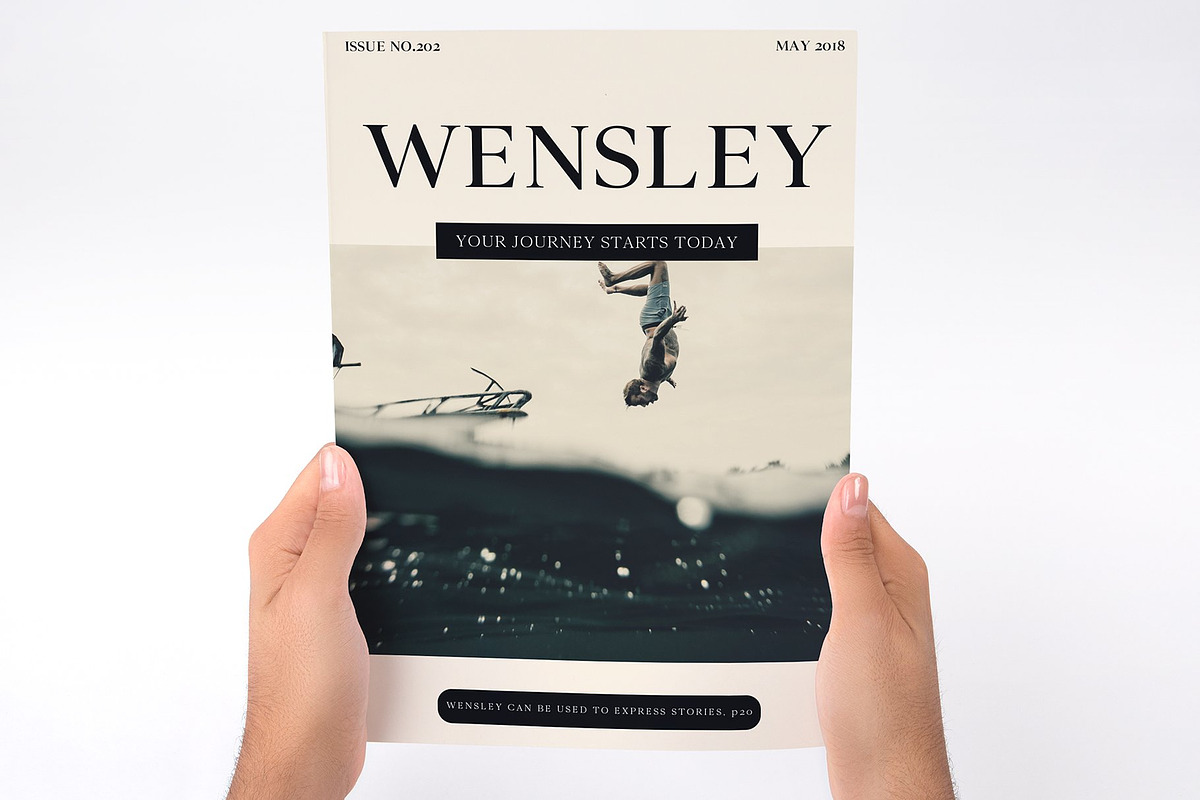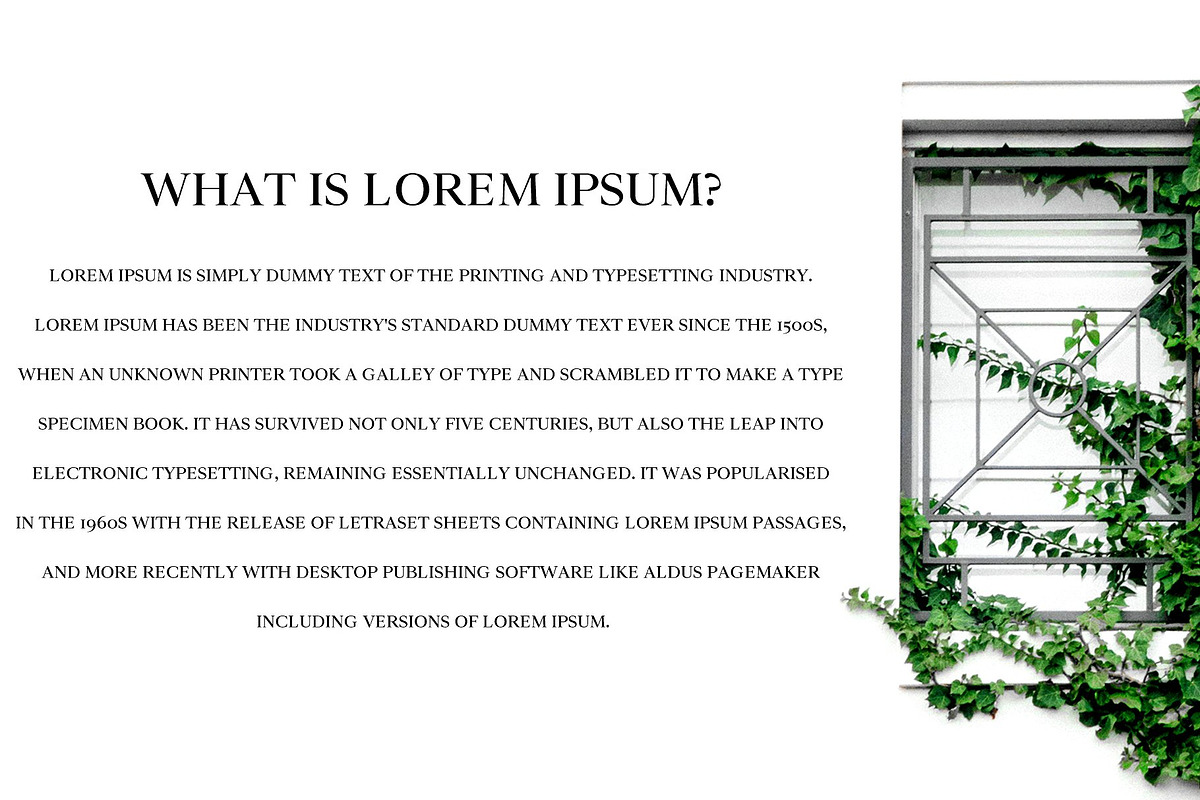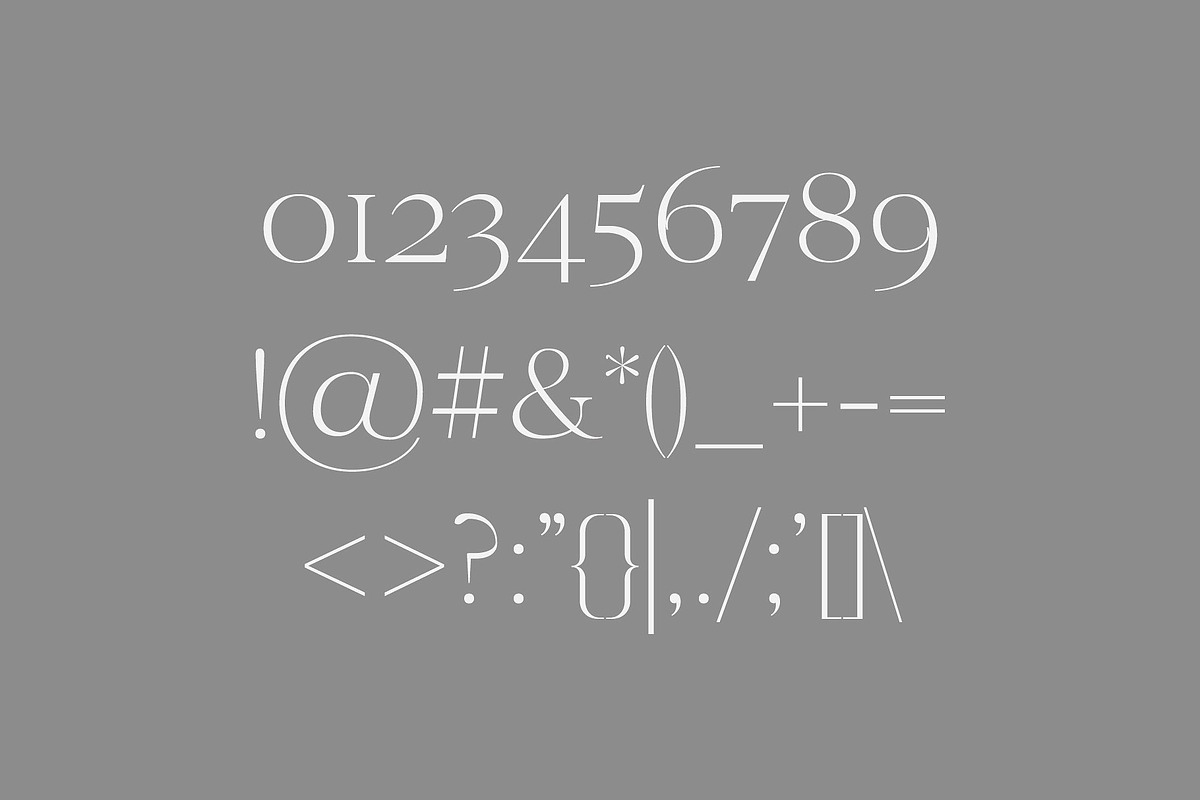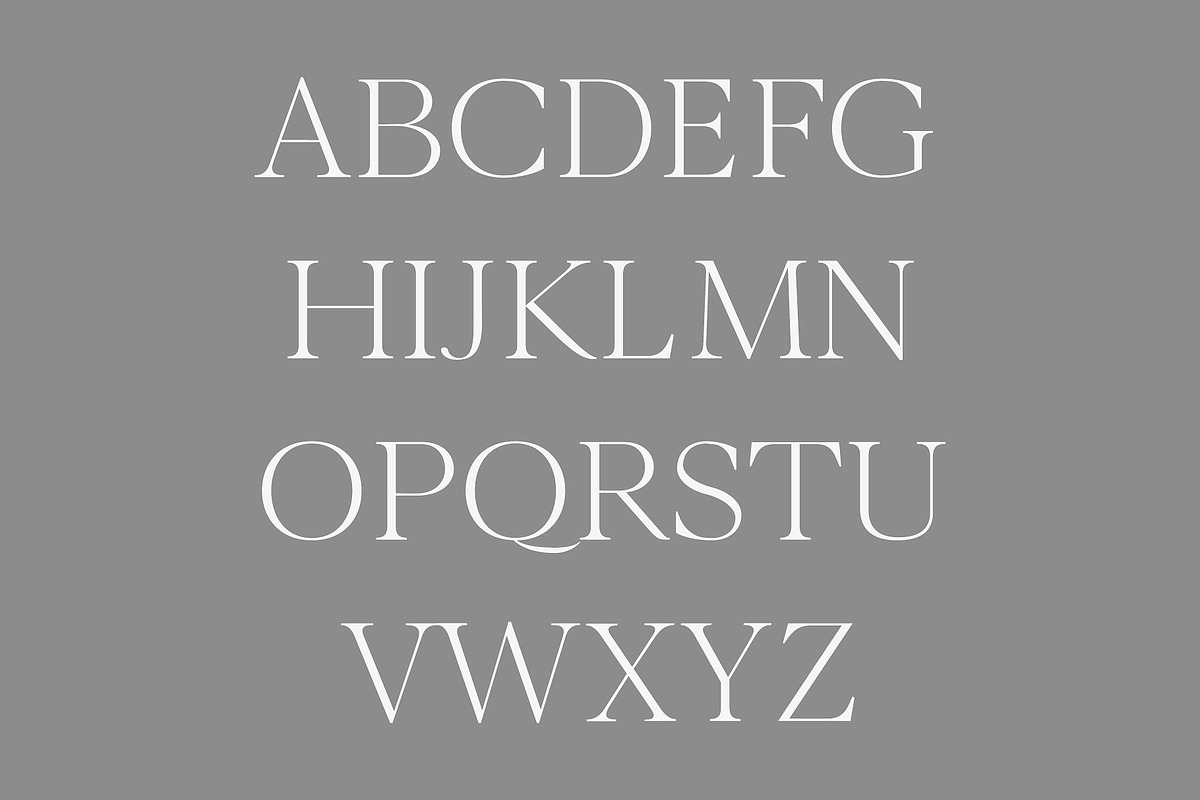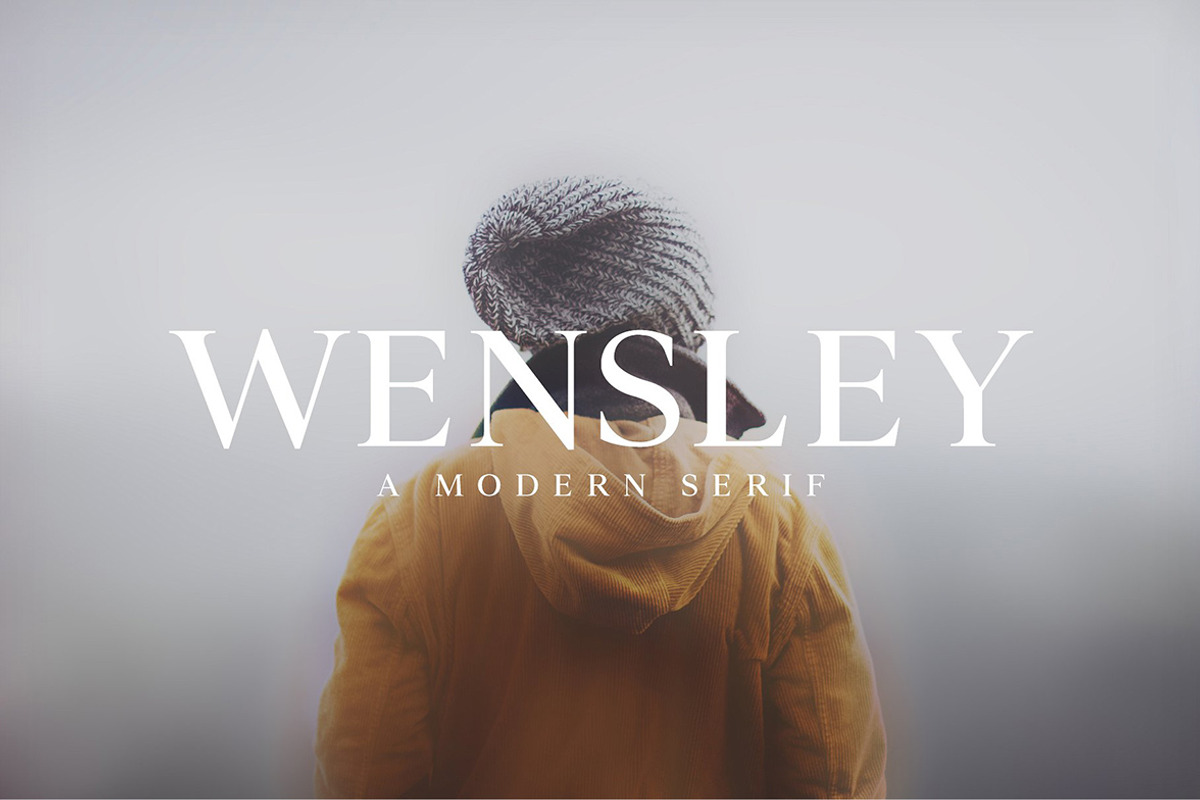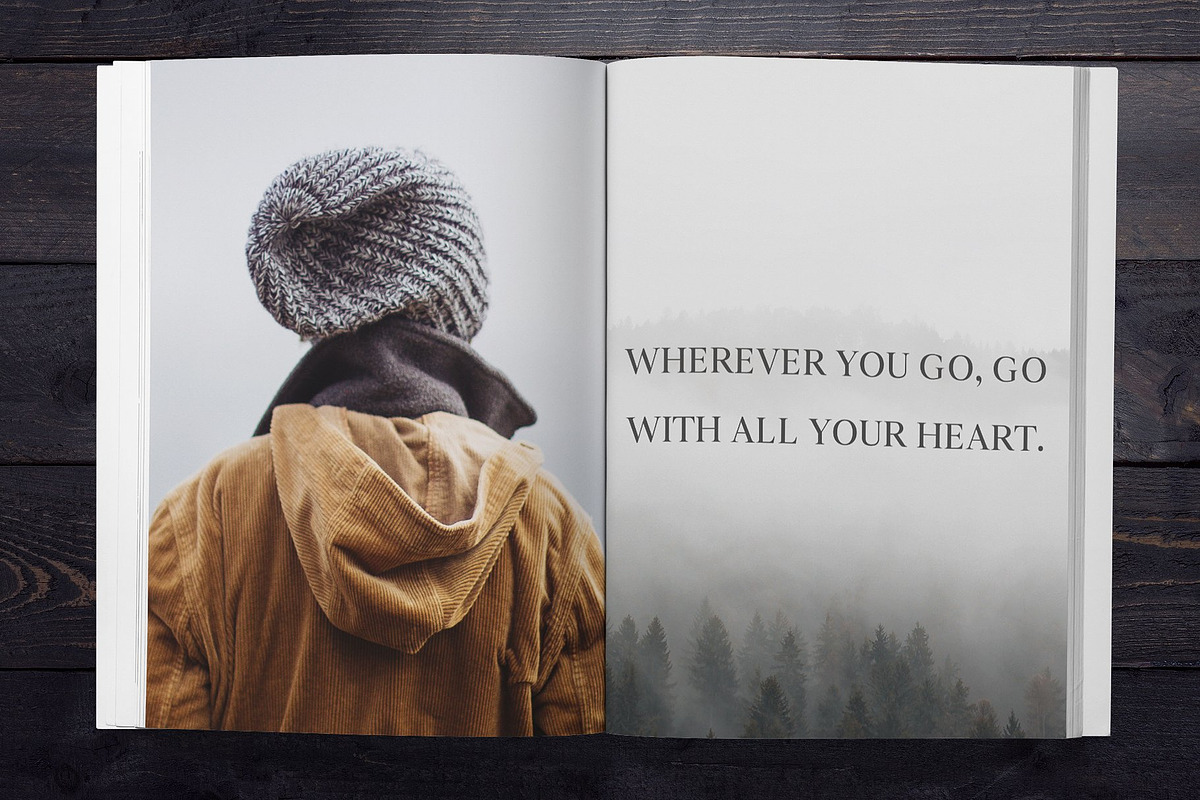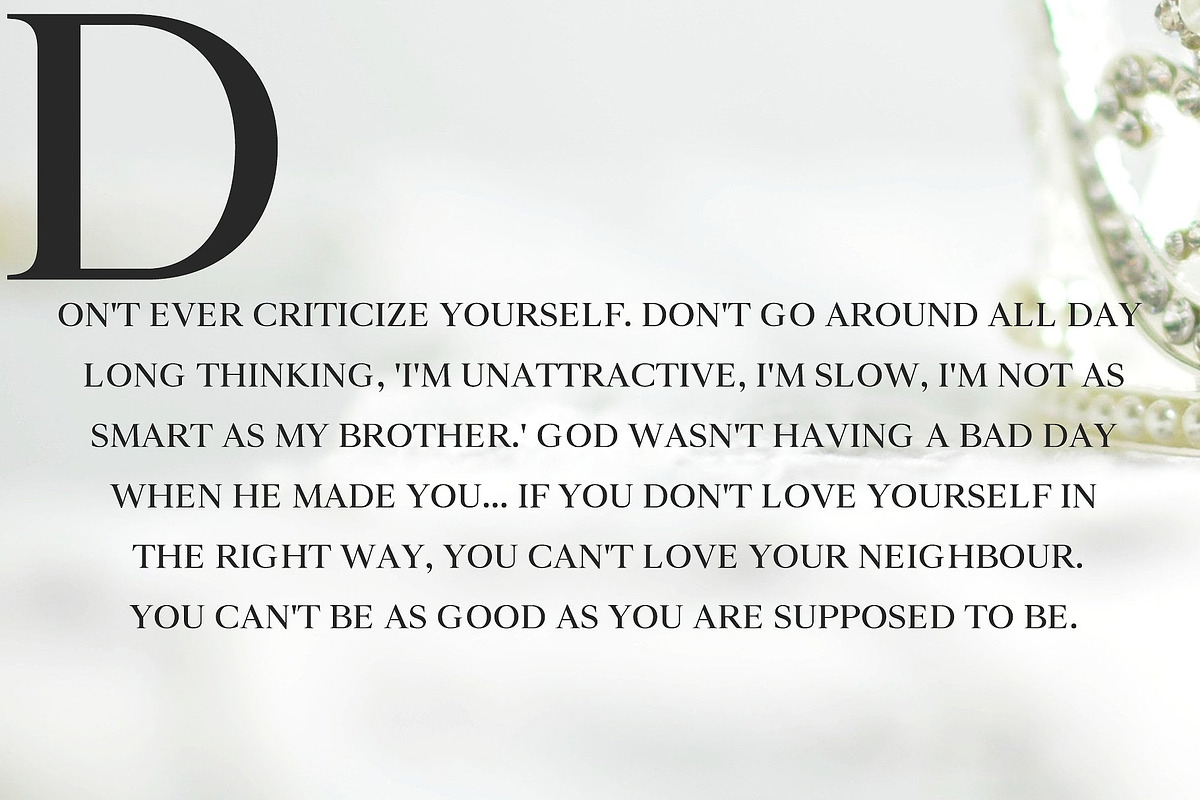
Wensley Modern Serif Font Family
Wensley is a modern high-class serif font typeface. It includes all basic glyphs with Non-English characters. This font will pair beautifully with the script, signature or handwriting style. Wensley is perfect for headlines, titles, magazines headings, logo's, presentations, posters, name card, web layouts, invitations, books, branding, and nearly any creative design.
Font Weight: Regular, Italic, Light, Light Italic, Bold and Bold Italic
///// Added Italic Weighs for Regular, Light and Bold Variant. ///////
Wensley Font Features:
Non English Characters ( Latin Extended A )